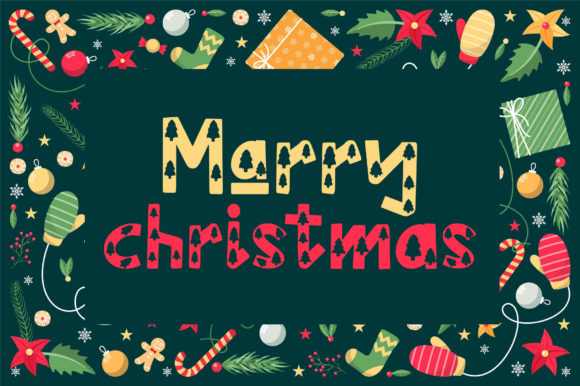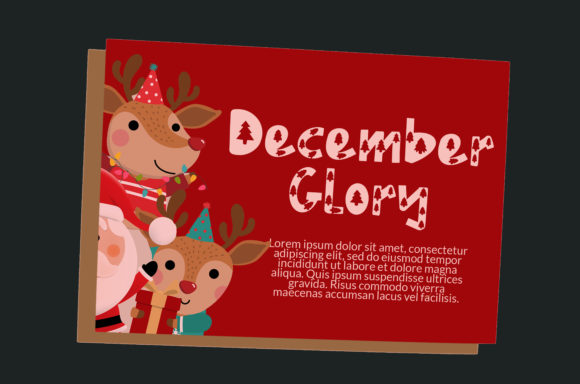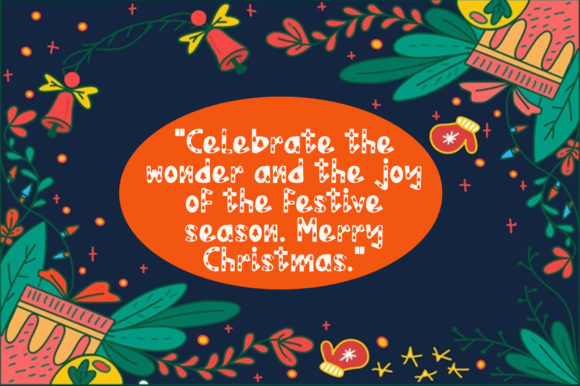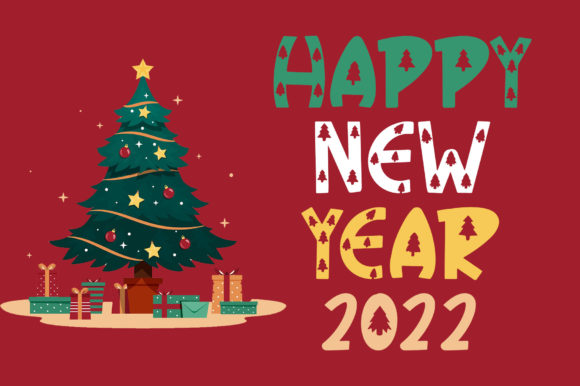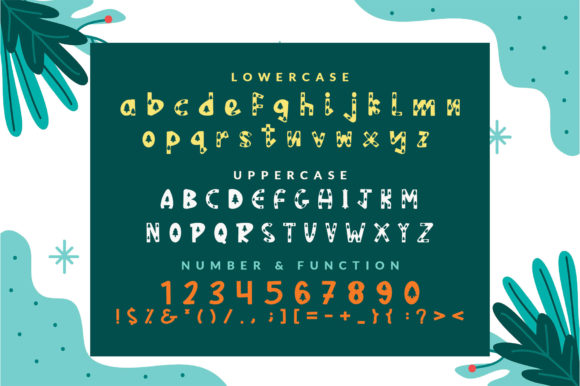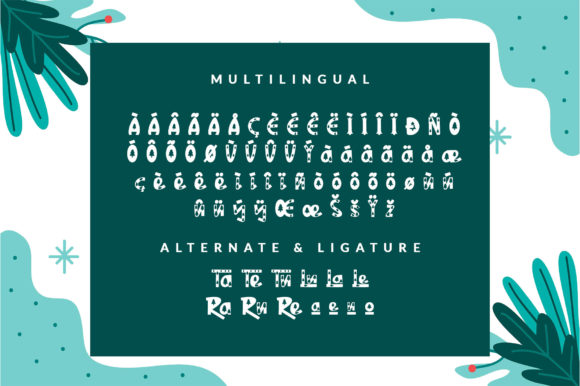
Introducing Christmas Spruce Font: Add a Touch of Holiday Magic to Your Designs
Are you looking for a unique and festive font to make your Christmas designs stand out? Look no further than Christmas Spruce Font! This charming, Christmas-themed font is perfect for designers and crafters who want to add a touch of holiday magic to their projects. In this article, we’ll take a closer look at Christmas Spruce Font, its features, and how you can use it to make your Christmas designs more special.
What is Christmas Spruce Font?
Christmas Spruce Font is a decorative font designed specifically for the holiday season. Its adorable and festive design makes it perfect for creating Christmas-themed designs, such as holiday cards, gift tags, and social media posts. The font includes a range of features that make it versatile and easy to use, including alternate characters, ligatures, and multilingual support.
Key Features of Christmas Spruce Font
- Alternate Characters: Christmas Spruce Font includes alternate characters that allow you to mix and match different versions of letters and symbols. This feature makes it easy to create unique and personalized designs.
- Ligatures: The font also includes ligatures, which are special character combinations that create a more fluid and natural look. Ligatures are perfect for creating elegant and sophisticated designs.
- Multilingual Support: Christmas Spruce Font supports multiple languages, making it a great choice for designers who work with international clients or want to create designs for a global audience.
How to Use Christmas Spruce Font in Your Designs
Christmas Spruce Font is easy to use and can be incorporated into a variety of design projects. Here are a few ideas to get you started:
- Holiday Cards: Use Christmas Spruce Font to create beautiful and festive holiday cards for your friends and family.
- Gift Tags: Add a personal touch to your gifts with custom gift tags designed using Christmas Spruce Font.
- Social Media Posts: Make your social media posts stand out with festive graphics and typography created using Christmas Spruce Font.
- Digital Papers: Use Christmas Spruce Font to create digital papers and backgrounds for your craft projects.
Tips for Getting the Most Out of Christmas Spruce Font
Here are a few tips for getting the most out of Christmas Spruce Font:
- Experiment with Different Sizes: Christmas Spruce Font looks great in a variety of sizes, from small and delicate to large and bold. Experiment with different sizes to find the one that works best for your design.
- Combine with Other Fonts: Christmas Spruce Font pairs well with other fonts, so don’t be afraid to combine it with other typefaces to create a unique look.
- Use with Holiday Graphics: Christmas Spruce Font is perfect for use with holiday graphics, such as snowflakes, holly, and mistletoe. Use it to create festive and eye-catching designs.
Christmas Spruce Font is a fun and festive font that’s perfect for designers and crafters who want to add a touch of holiday magic to their projects. With its adorable design, alternate characters, ligatures, and multilingual support, this font is sure to become a favorite in your design arsenal. So why wait? Download Christmas Spruce Font today and make your Christmas designs more miracle!
Whether you’re creating holiday cards, gift tags, or social media posts, Christmas Spruce Font is the perfect choice. Its versatility and ease of use make it a great addition to any design project. So go ahead, get creative, and make this Christmas one to remember!